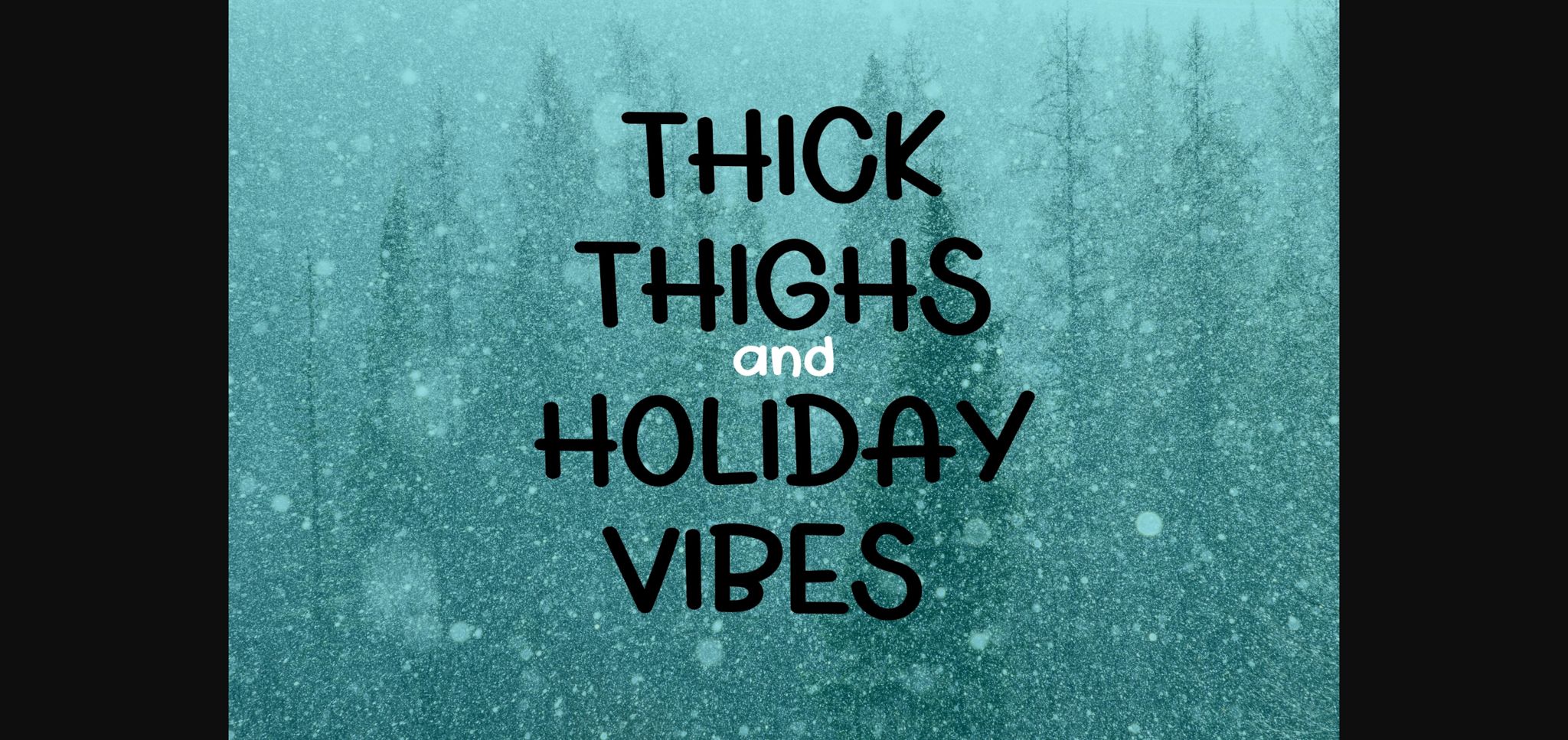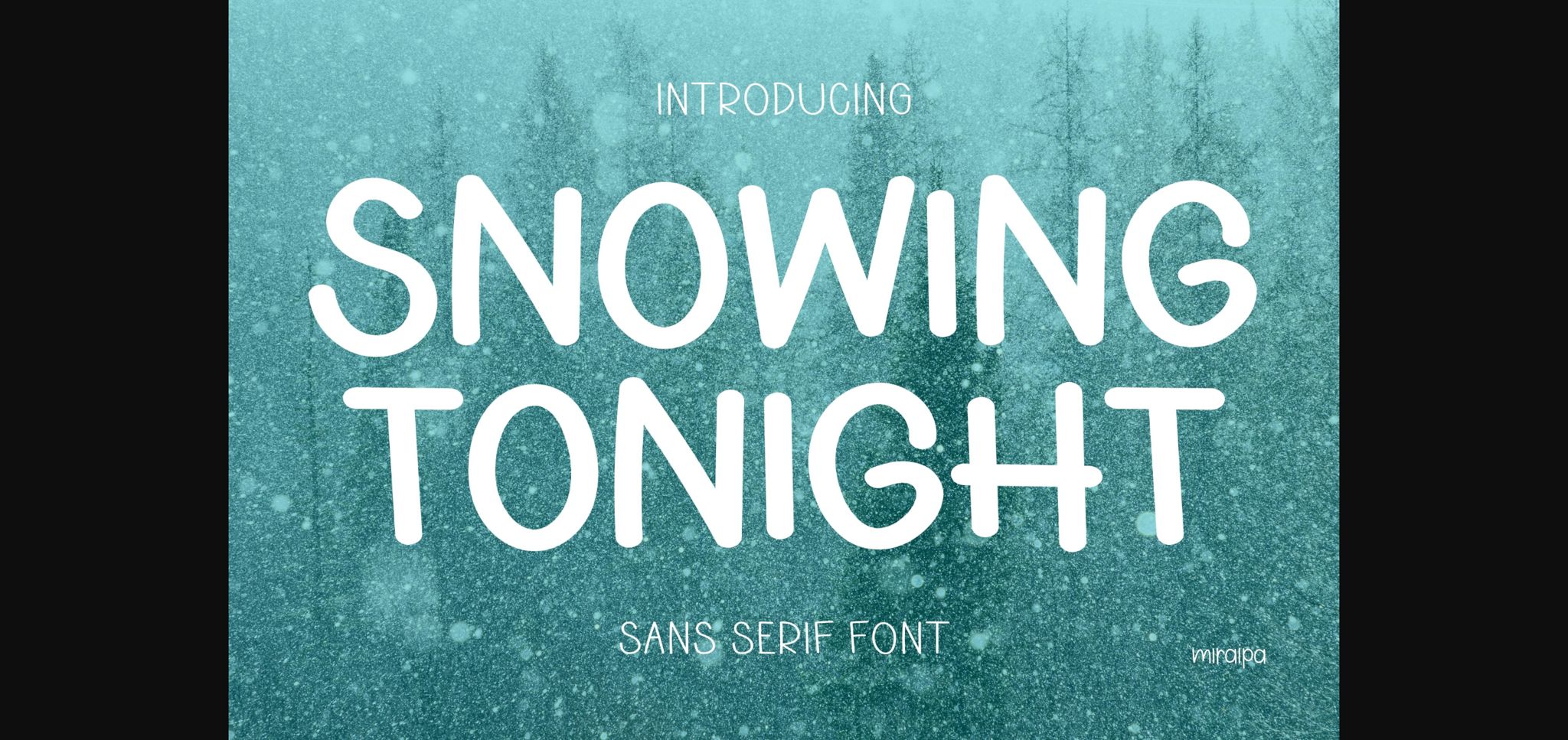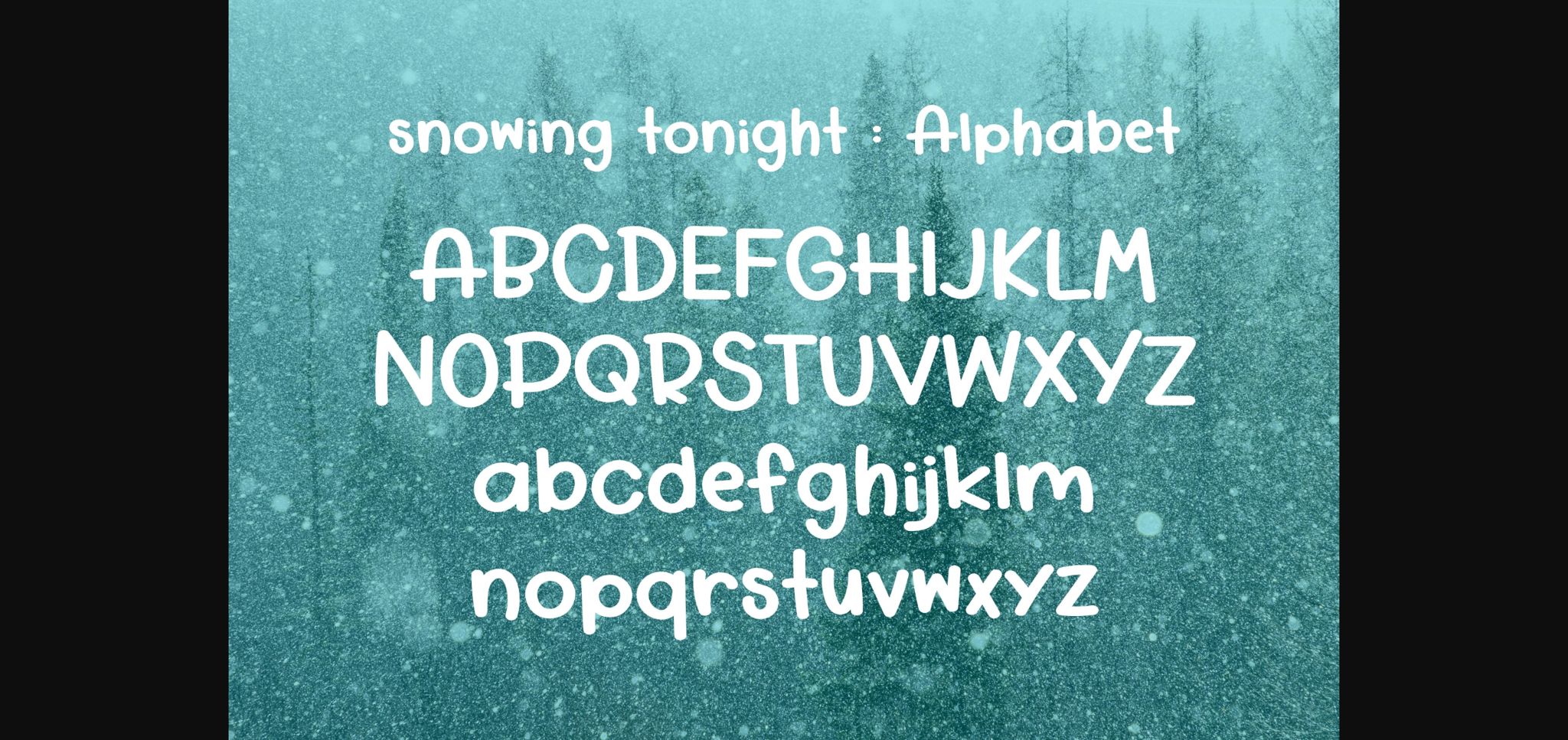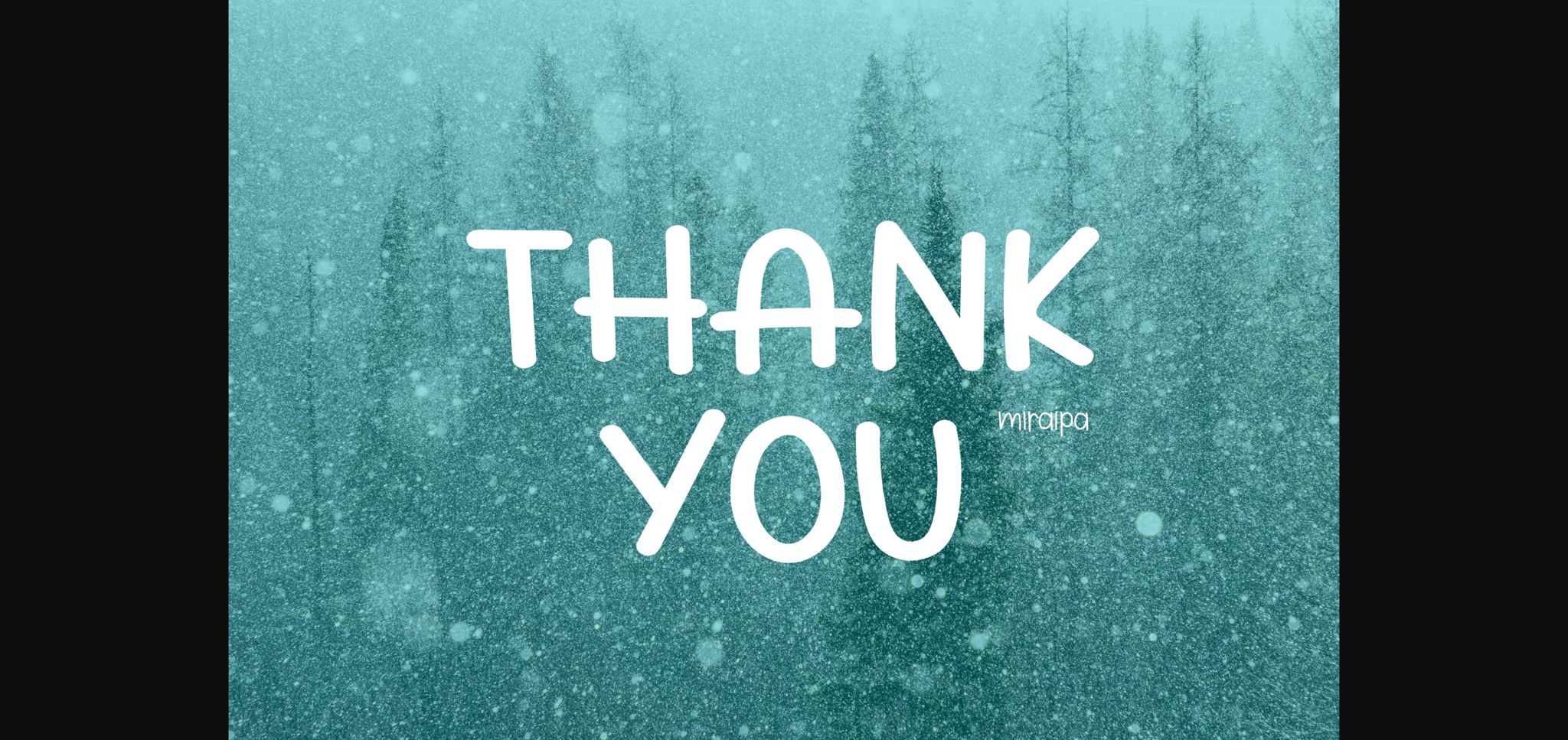
Snowing Tonight Font
About Snowing Tonight Font
Snowing Tonight is a friendly and cute handwritten sans serif font. Whether you’re using it for crafts, digital design, presentations, or making greeting cards, this font has the potential to become your favorite go-to font, no matter the occasion!